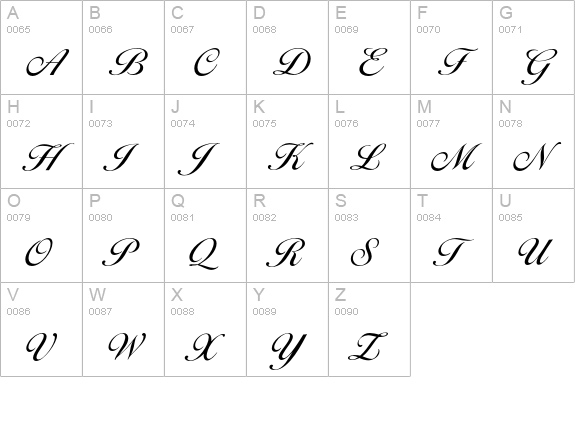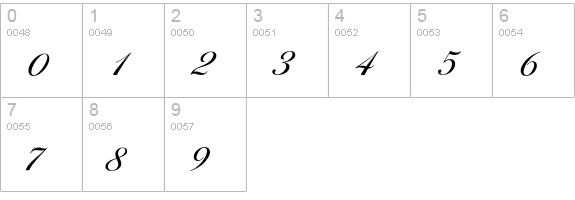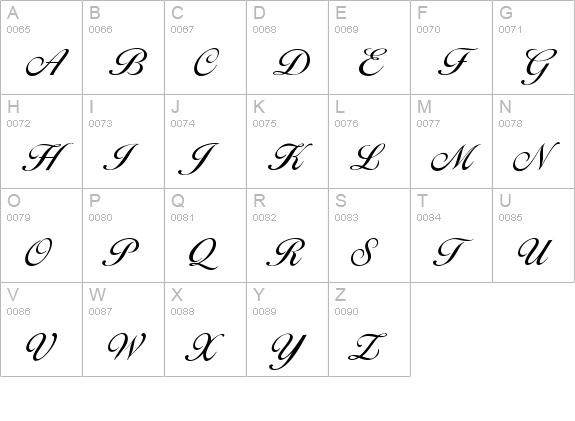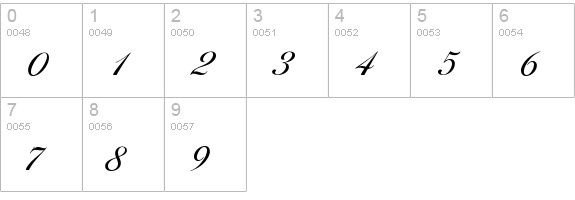
Ballantines-Rgl is a versatile and elegant font that exudes sophistication and style. With its classic yet modern design, this font is perfect for a wide range of design projects, from branding to packaging to editorial design. Its clean lines and balanced proportions make it easy to read while still adding a touch of sophistication to any design. What sets Ballantines-Rgl apart is its timeless appeal and versatility. Whether you're working on a sleek corporate identity or a playful poster design, this font will elevate your project to the next level. And the best part? Ballantines-Rgl is completely free to download at FontsMarket.com. So go ahead and give your designs that extra touch of elegance with this beautiful and versatile font.